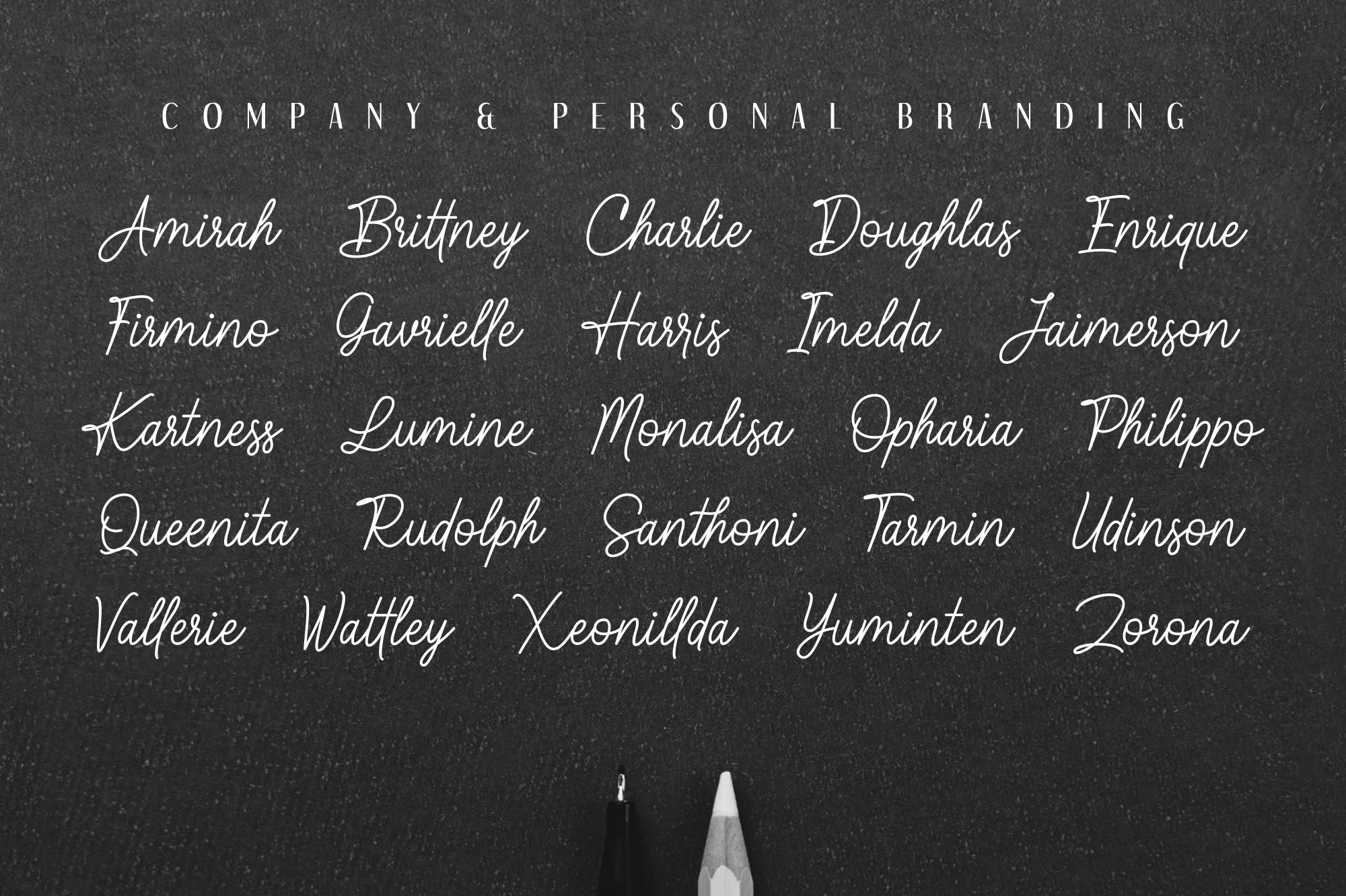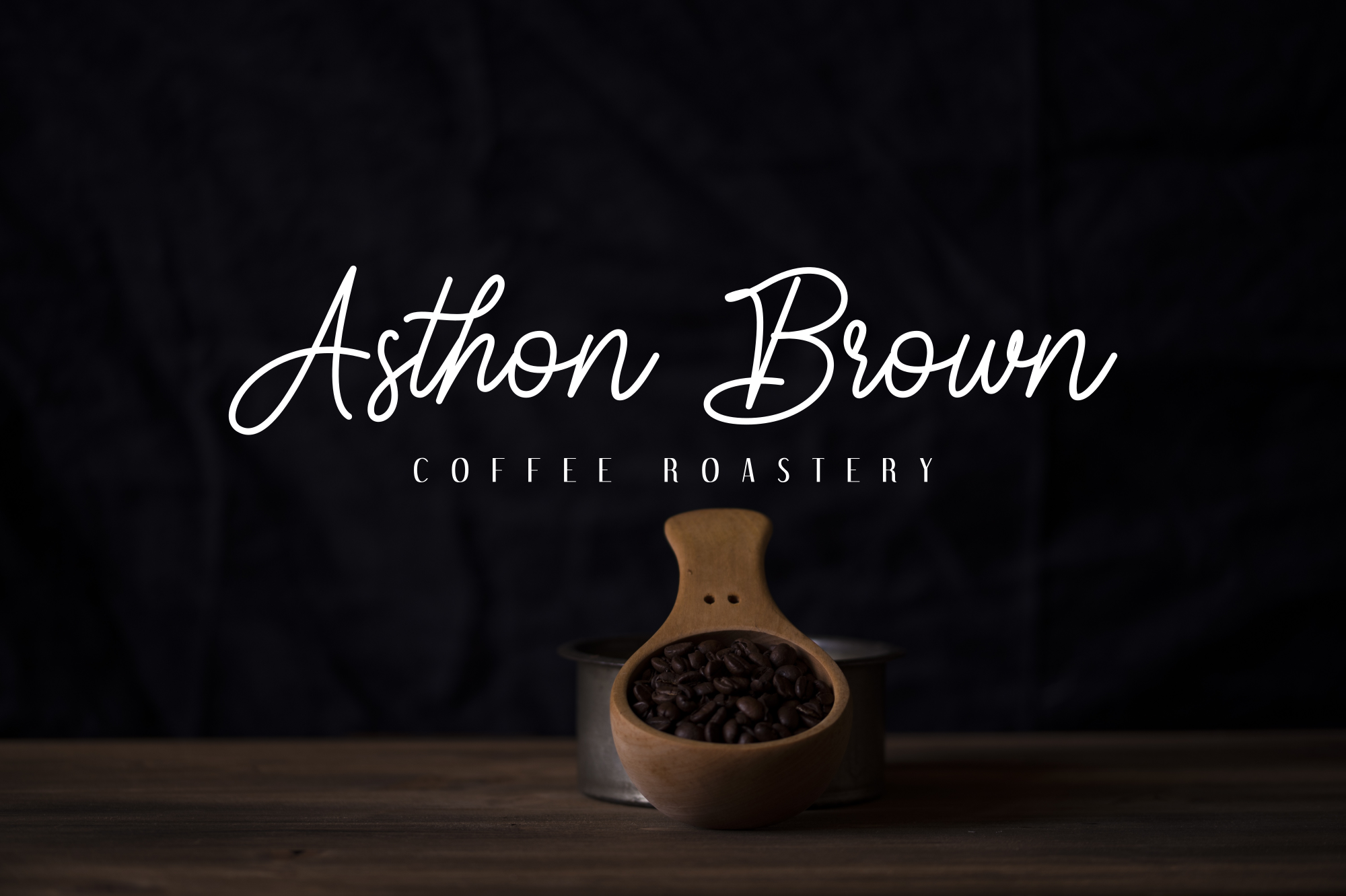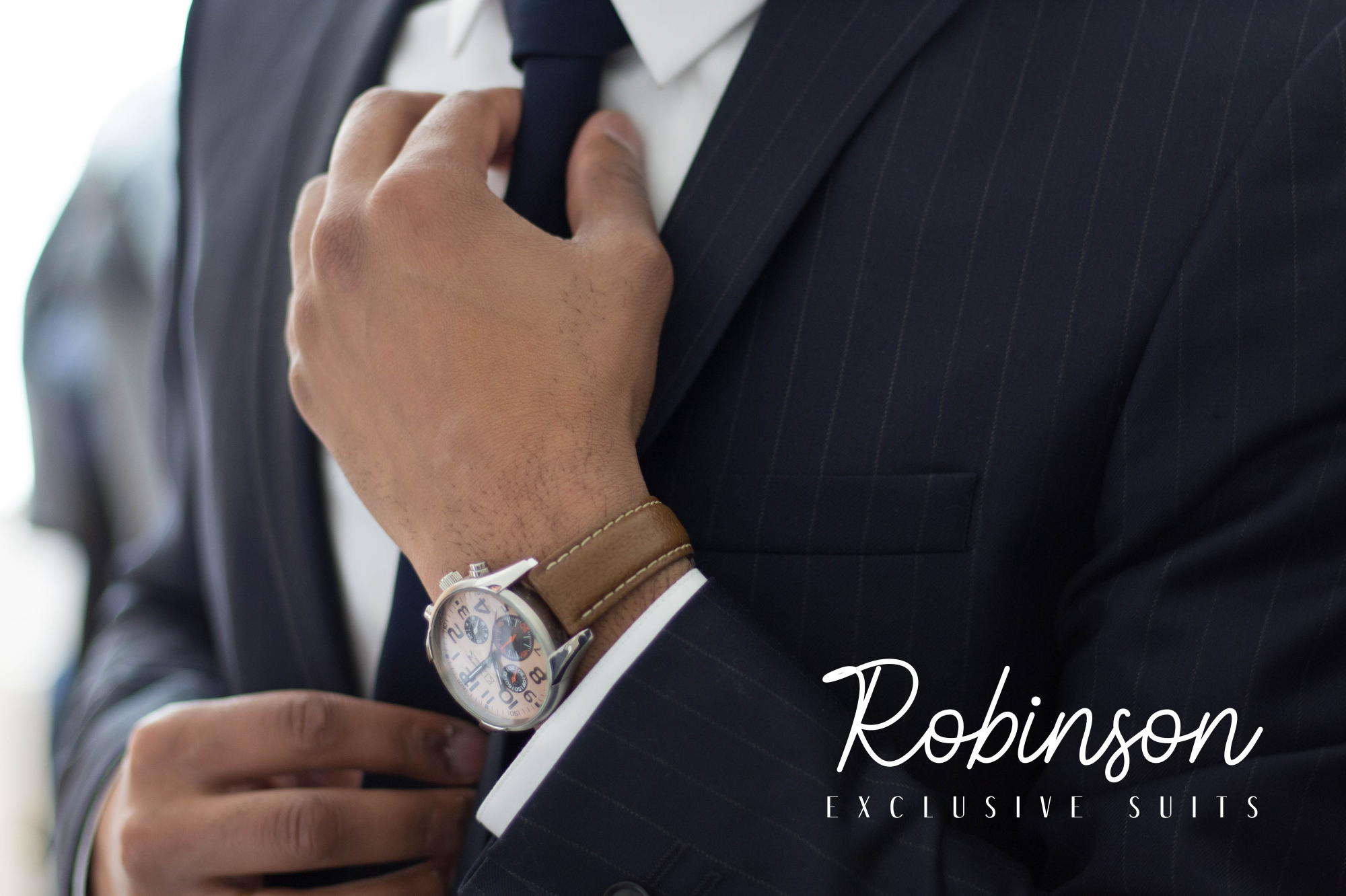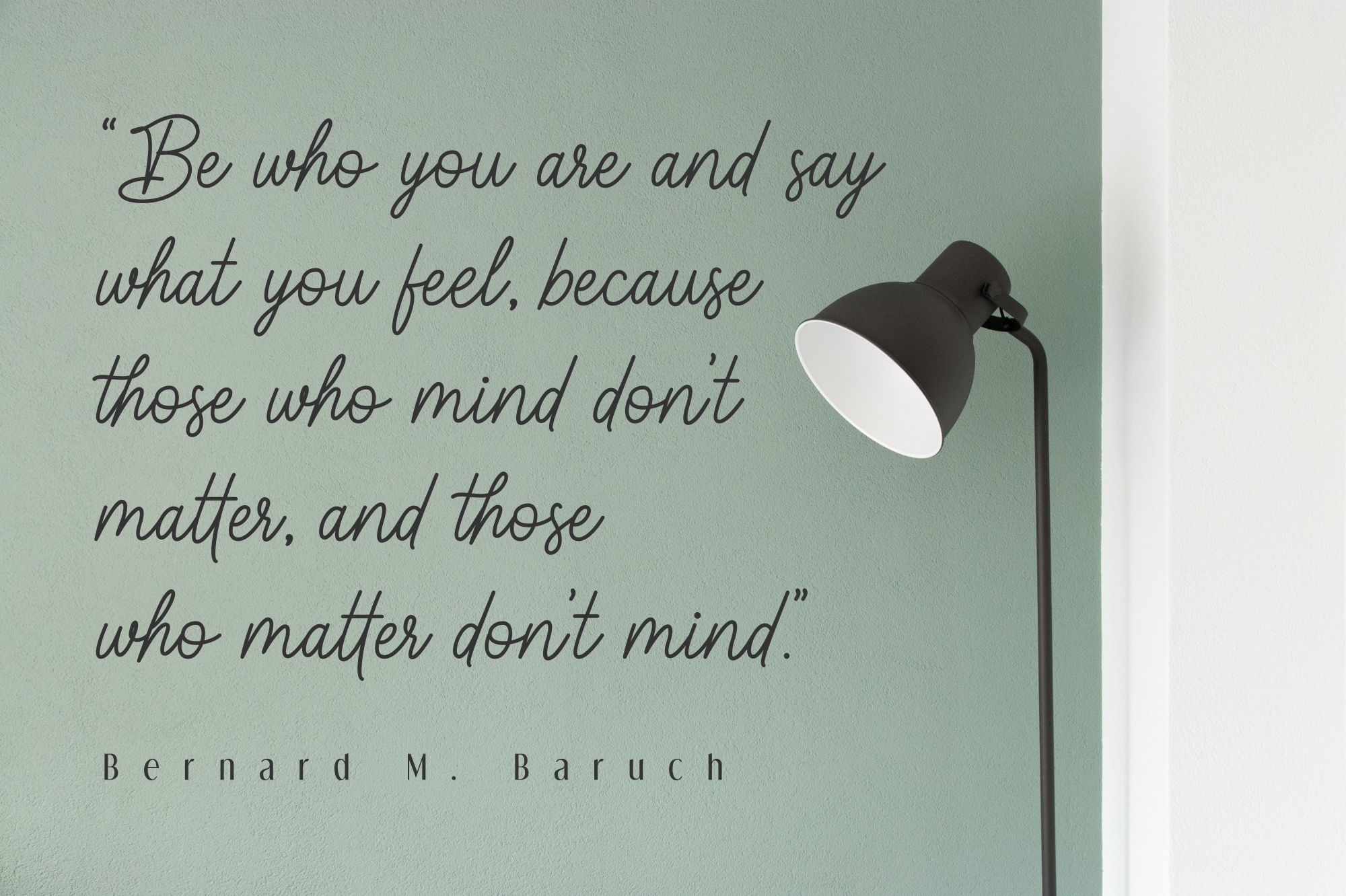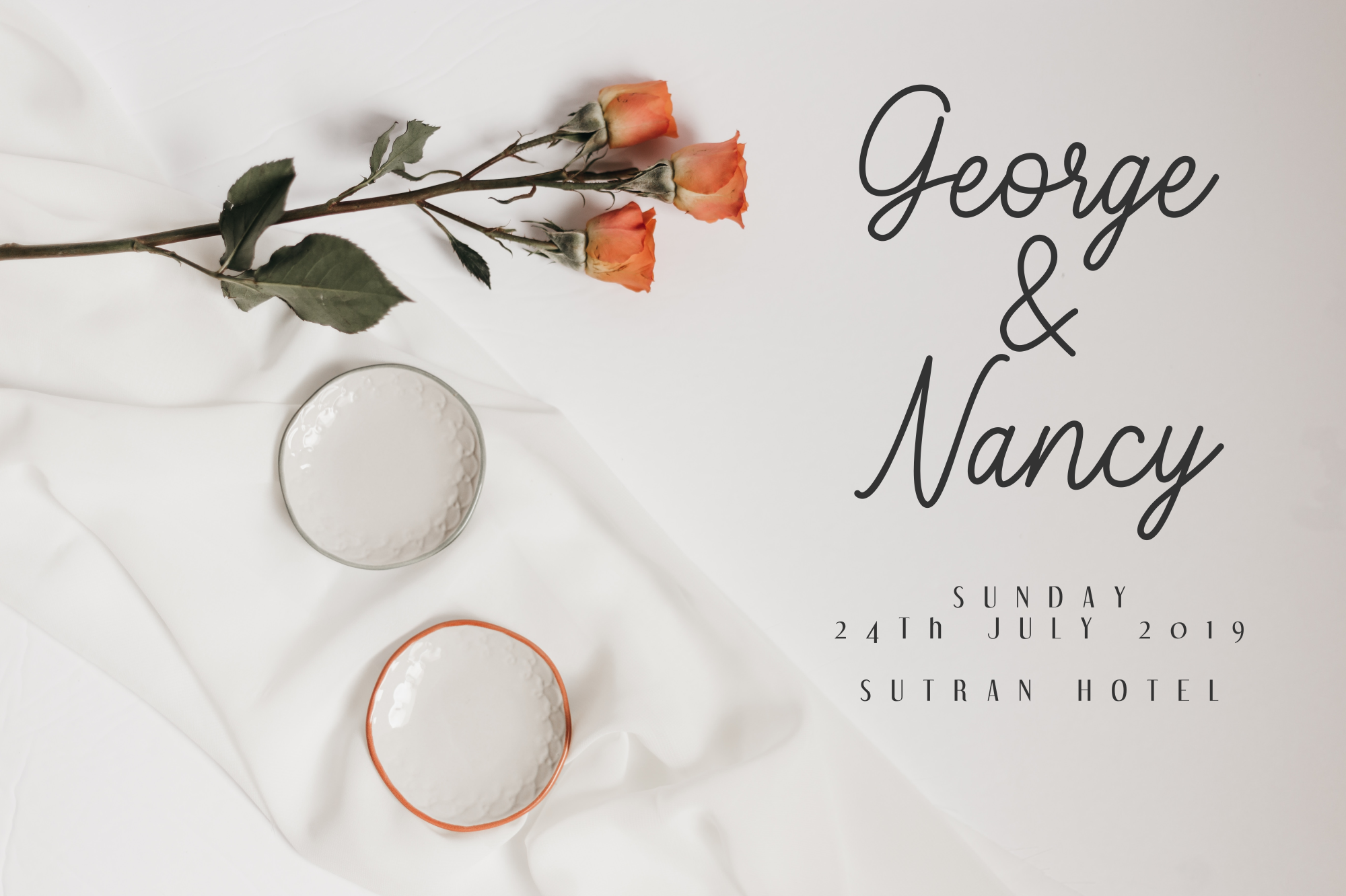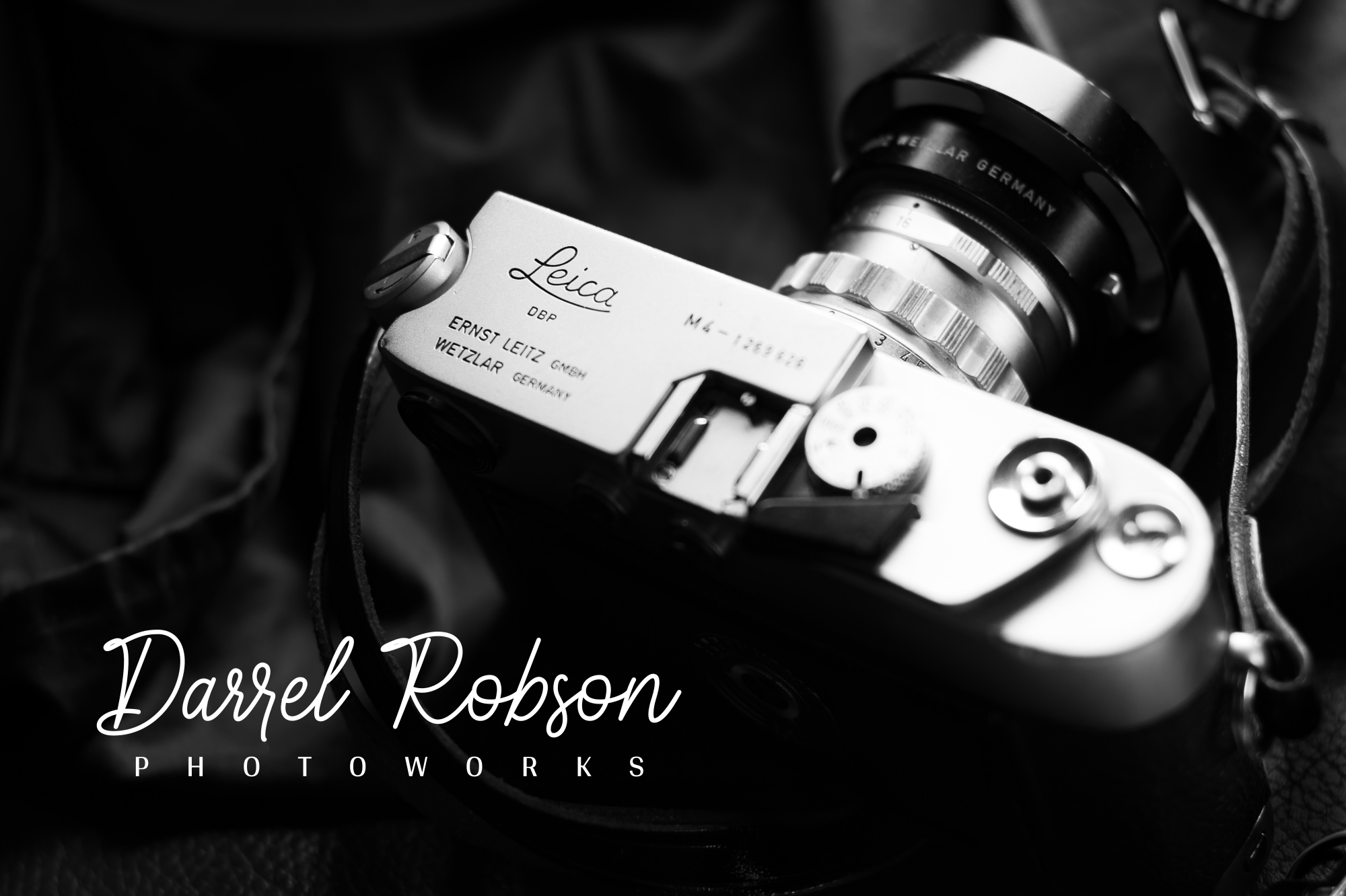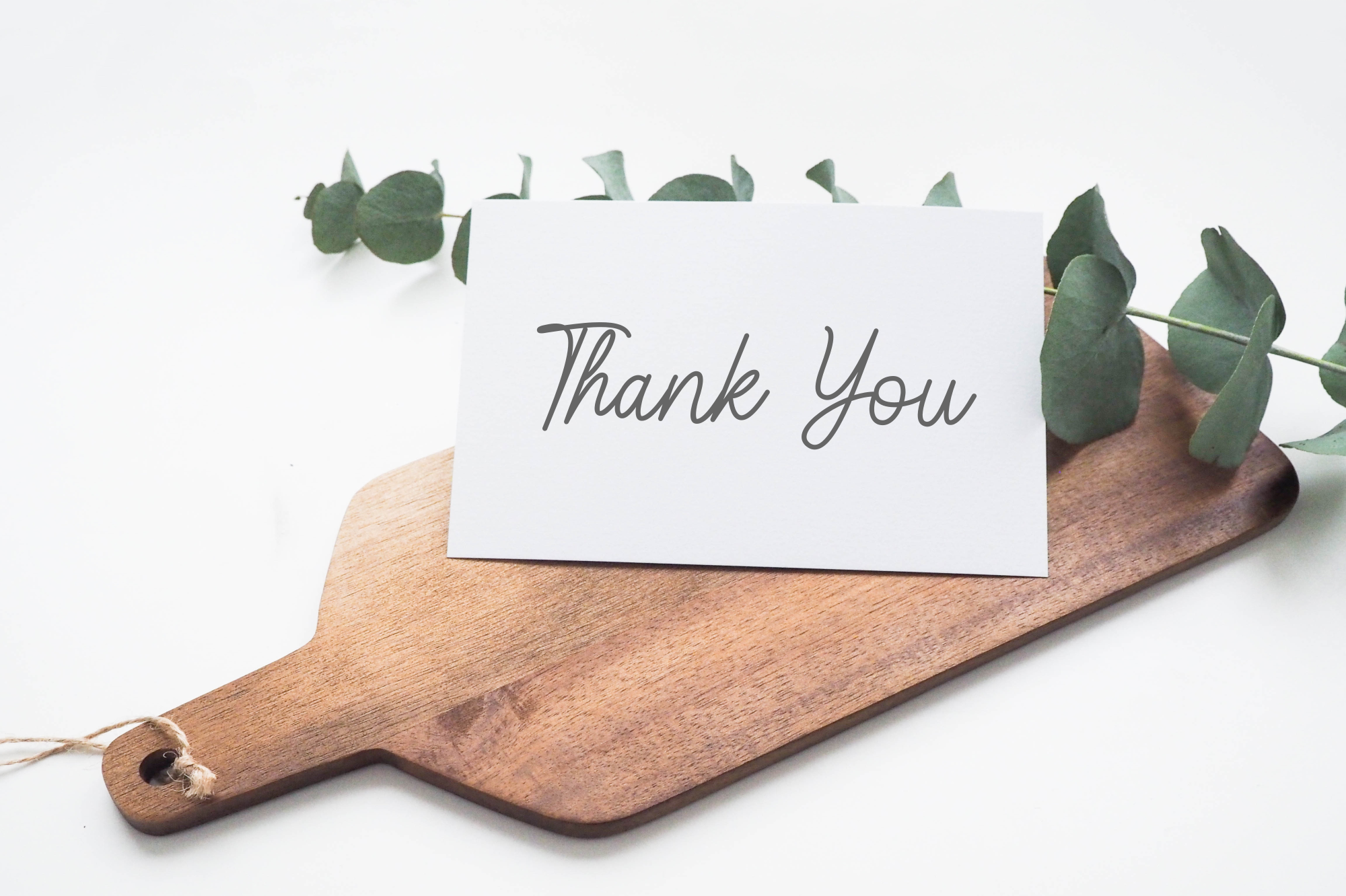
Kaylland - Monoline Script Font
Kaylland is a beautiful monoline script font with a smart and cool feel. Its stylish personality helps turn simple design ideas into standout visuals.
Kaylland is a beautiful monoline script font with a smart and cool feel. Its stylish personality helps turn simple design ideas into standout visuals. It works well for logos, branding, packaging, invitations, social media designs, quotes, and more.